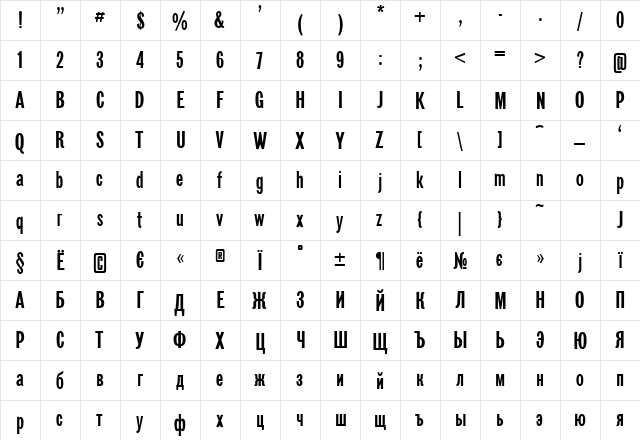
NewspaperSansC Normal
Design Context for NewspaperSansC Typeface
NewspaperSansC is a composed and adaptable typeface that performs quietly and consistently across a wide range of design contexts.